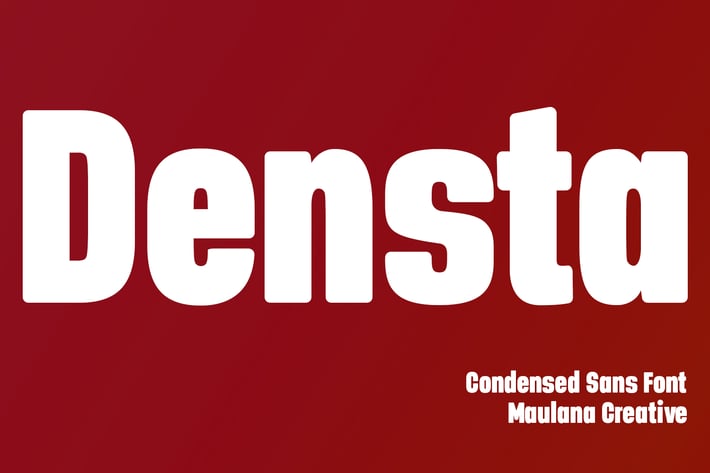
Densta Condensed Sans Display Font
Densta is a Condensed Sans font. Bold stroke, fun character with a bit of ligatures and alternates. To give you an extra creative work. Densta font support multilingual more than 100+ language. This font is good for logo design, Social media, Movie Titles, Books Titles, a short text even a long text letter and good for your secondary text font with script or serif. Make a stunning work with Densta font.